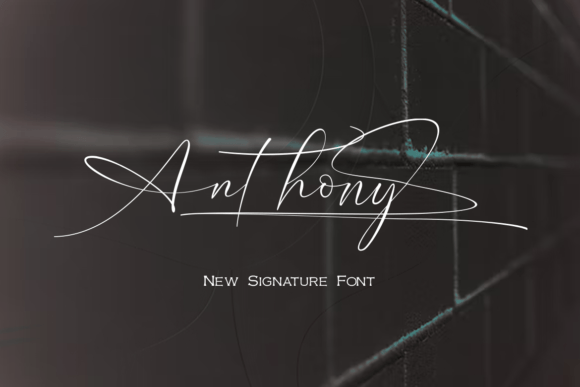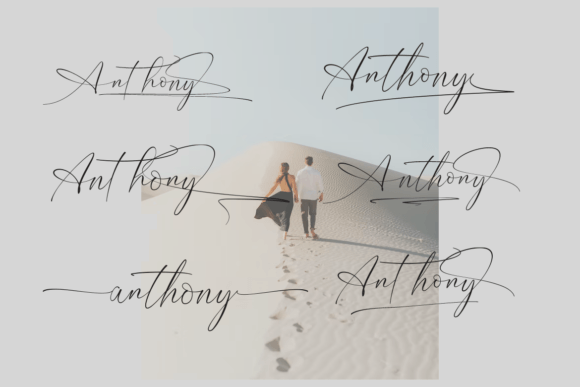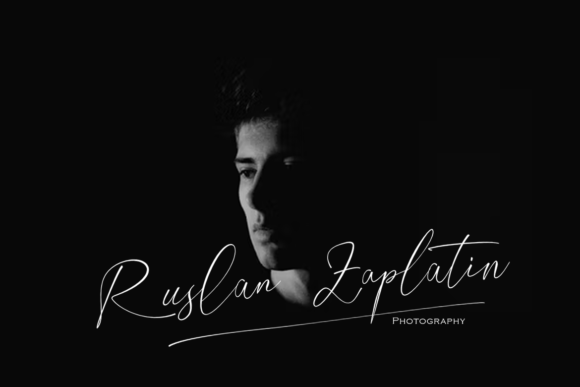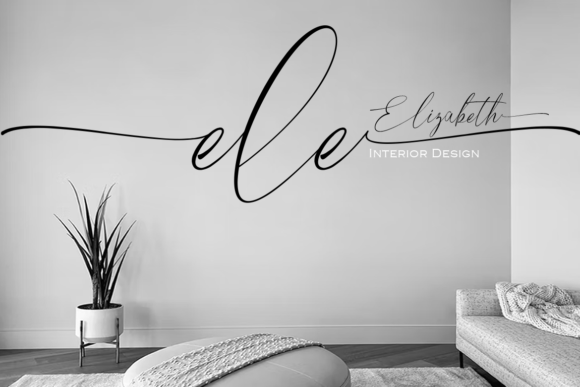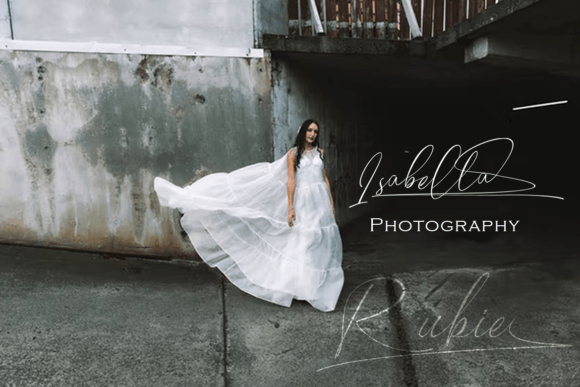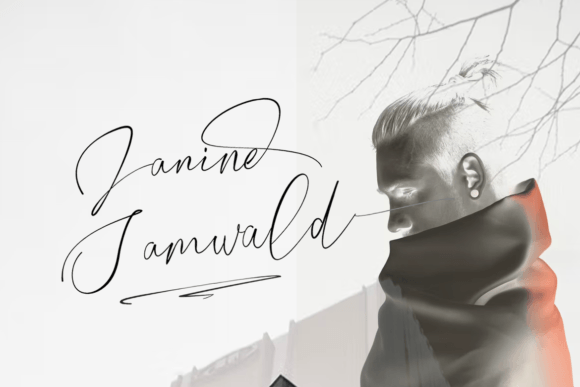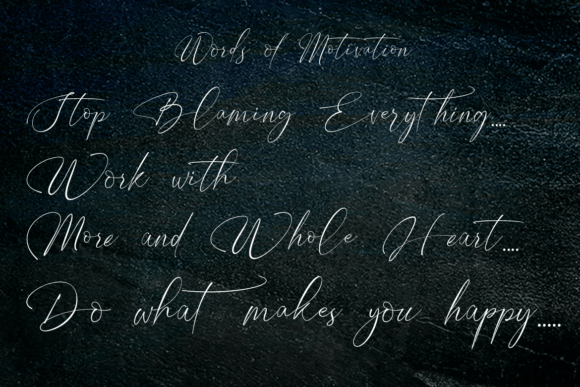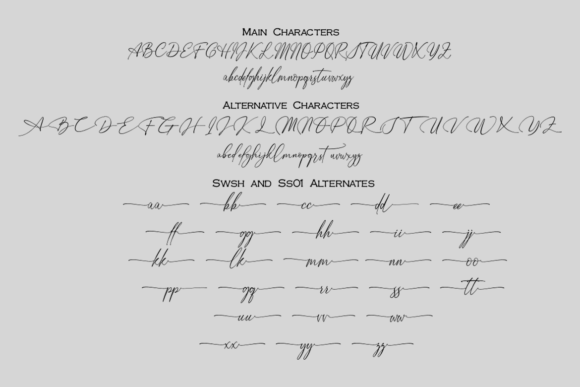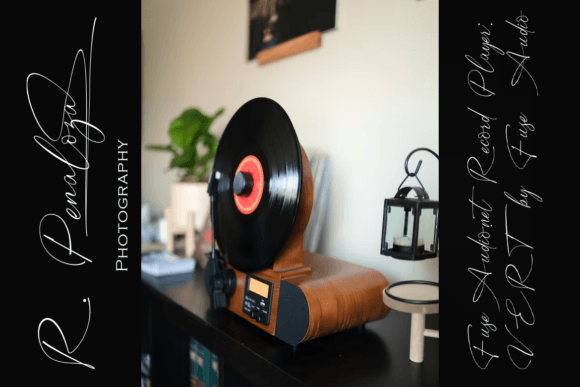
Anthony Font
About Anthony Font
Anthony is a beautiful and modern handwritten font, meticulously designed to elevate various creative projects. Ideal for branding, photography, invitations, quotes, watermarks, advertisements, labels, and more, Anthony brings a contemporary and stylish touch to your designs.
The font’s beauty lies in its modern aesthetic, making it versatile for a broad range of applications across different industries. Whether you’re working on a sophisticated branding project or adding a personal touch to invitations, Anthony stands out as a font that seamlessly adapts to diverse design contexts.
A noteworthy feature of Anthony is its PUA encoding, allowing convenient access to all the glyphs and swashes. This means you have easy and flexible control over the font’s elements, empowering you to customize and tailor it according to your creative vision.
Whether you’re crafting a quote for social media or designing labels for products, Anthony’s well-crafted characters and modern appeal contribute to the overall visual impact of your projects. Its versatility and ease of use make it a valuable asset in the toolkit of designers seeking a beautiful handwritten font with modern sensibilities.
In summary, Anthony is more than just a font; it’s a modern and beautiful design tool that enhances the visual appeal of your creative projects. Unlock the potential of this handwritten gem and let Anthony bring a contemporary and stylish vibe to your branding and design endeavors.